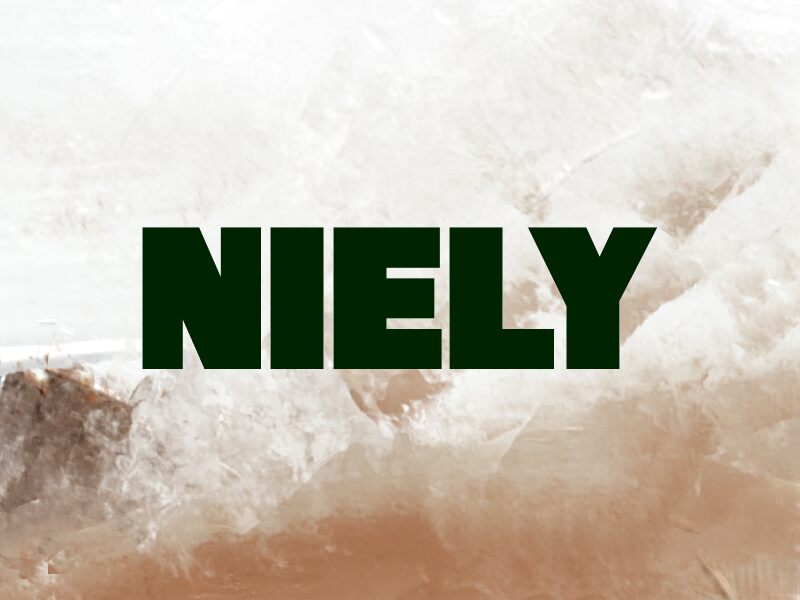
NIELY
Niely font by wep is a free bold sans serif typeface with a massive, slab-like presence that feels almost carved from solid ink. Its chunky, tightly stacked forms and straight-cut edges give every word a strong, no-nonsense silhouette, while the slight forward kick in the letters adds a sense of motion rather than stiffness. The result is a blocky, confident voice that reads fast and hits hard, even from a distance.
Using Niely, you can push brand logos, posters, packaging, social media graphics, event flyers, and web banners into loud, unmistakable territory. This free font thrives in large sizes where its thick strokes and compact spacing can really dominate the layout. Pair Niely with a light, open sans serif for body copy to keep things readable while letting those bold headlines do the shouting.